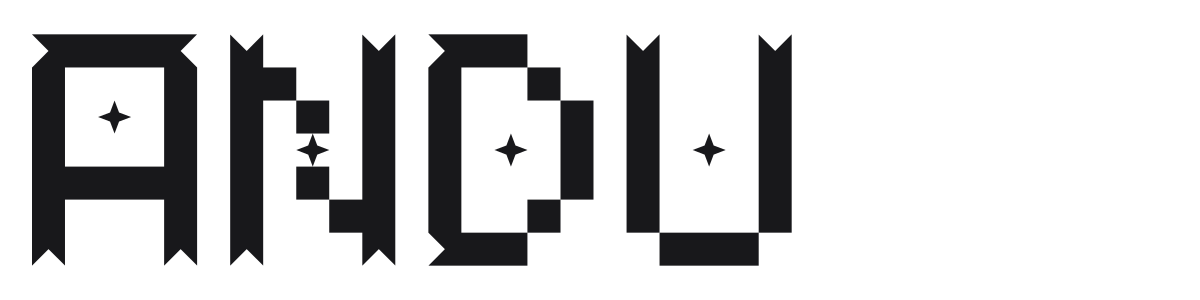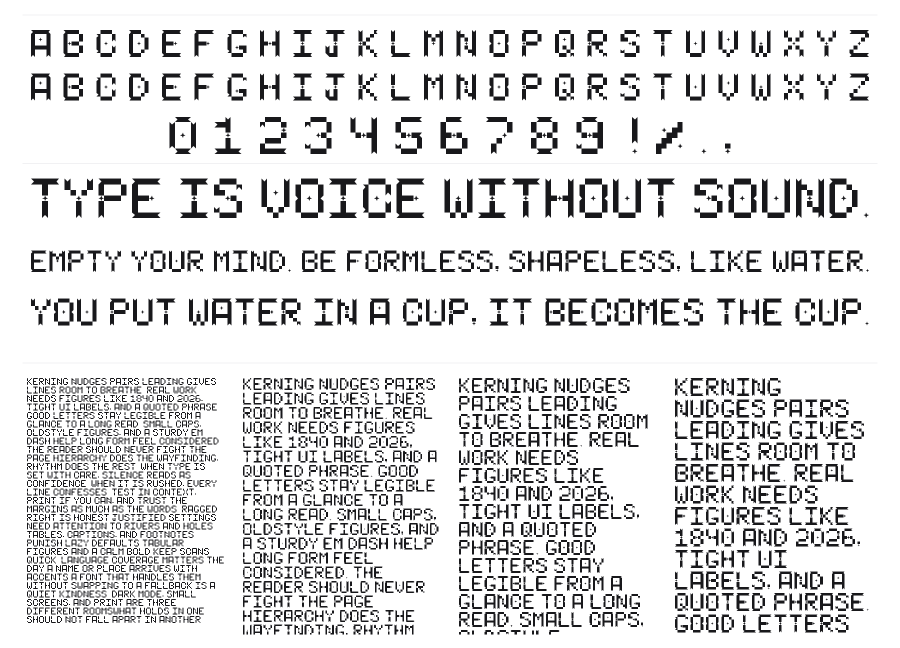
Andu
by Andu
Andu is a bold pixel-grid display font built from chunky bitmap squares with small cross-shaped notches decorating stroke intersections and terminals. The result sits somewhere between an arcade scoreboard and a sci-fi interface readout. It carries a lot of visual weight and works best at large sizes where the grid geometry can breathe.